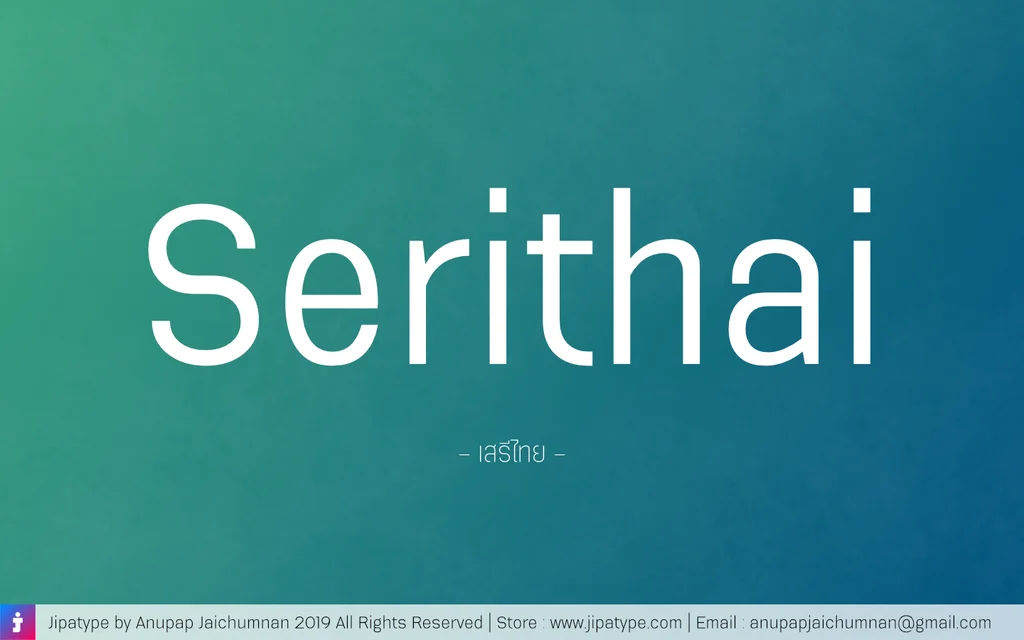
Serithai Font is perfect for Asian-inspired branding, Thai restaurant logos, spa and wellness centers, travel agency marketing, cultural event posters, exotic product packaging, meditation app interfaces, yoga studio signage, hospitality branding, and contemporary designs that blend Eastern aesthetics with modern sophistication.
This font is exciting because it beautifully bridges traditional Thai cultural elements with contemporary typography, creating a unique fusion that feels both authentic and fresh. The elegant letterforms capture the graceful fluidity and artistic heritage of Thai design while maintaining exceptional readability and modern appeal that works across diverse international applications.
The Serithai Font family typically includes uppercase and lowercase characters, numerals, punctuation marks, special symbols, and carefully crafted glyphs that respect cultural authenticity while providing practical versatility for professional design projects worldwide.
Whether you're creating culturally-inspired brand identities, designing travel and tourism materials, or developing wellness and hospitality marketing that celebrates Asian influences, Serithai Font Free Download provides the perfect typographic solution for cross-cultural communication. Its distinctive character and elegant styling make every project feel more sophisticated and culturally aware, ensuring your designs authentically honor Thai aesthetic traditions while appealing to modern global audiences seeking meaningful connections with diverse cultures and experiences.